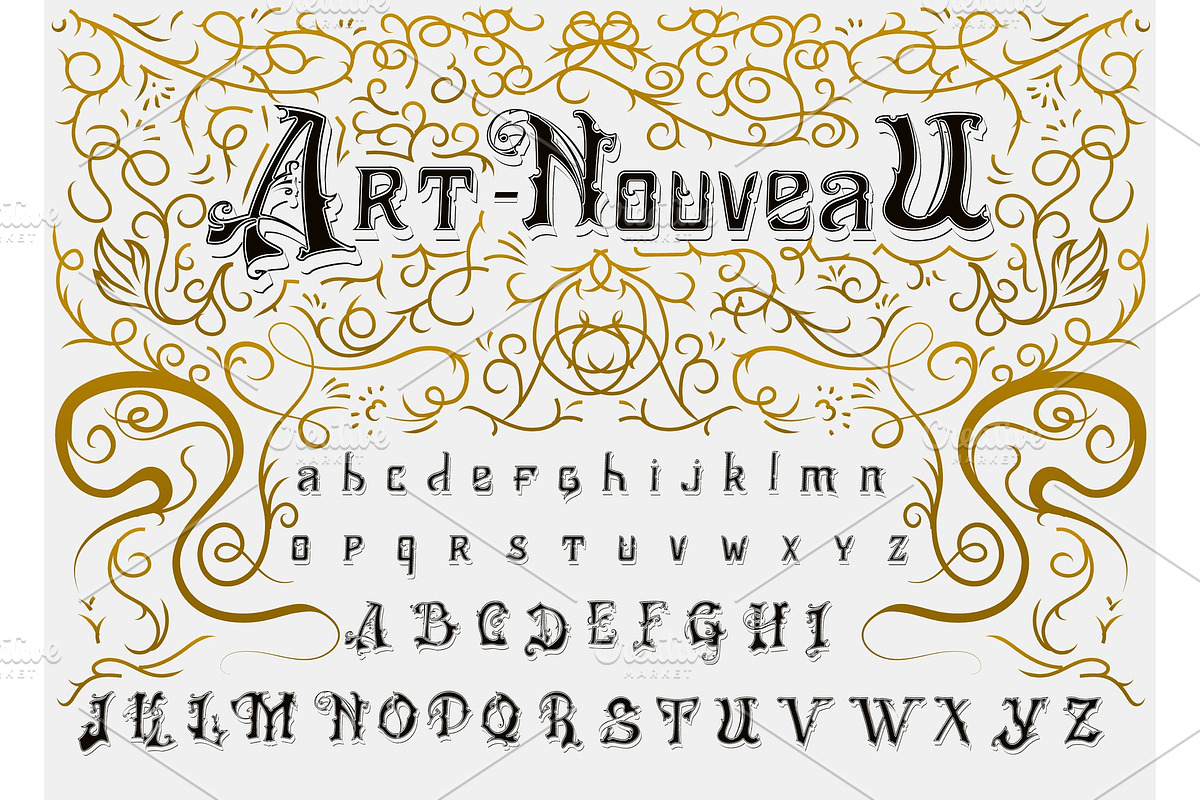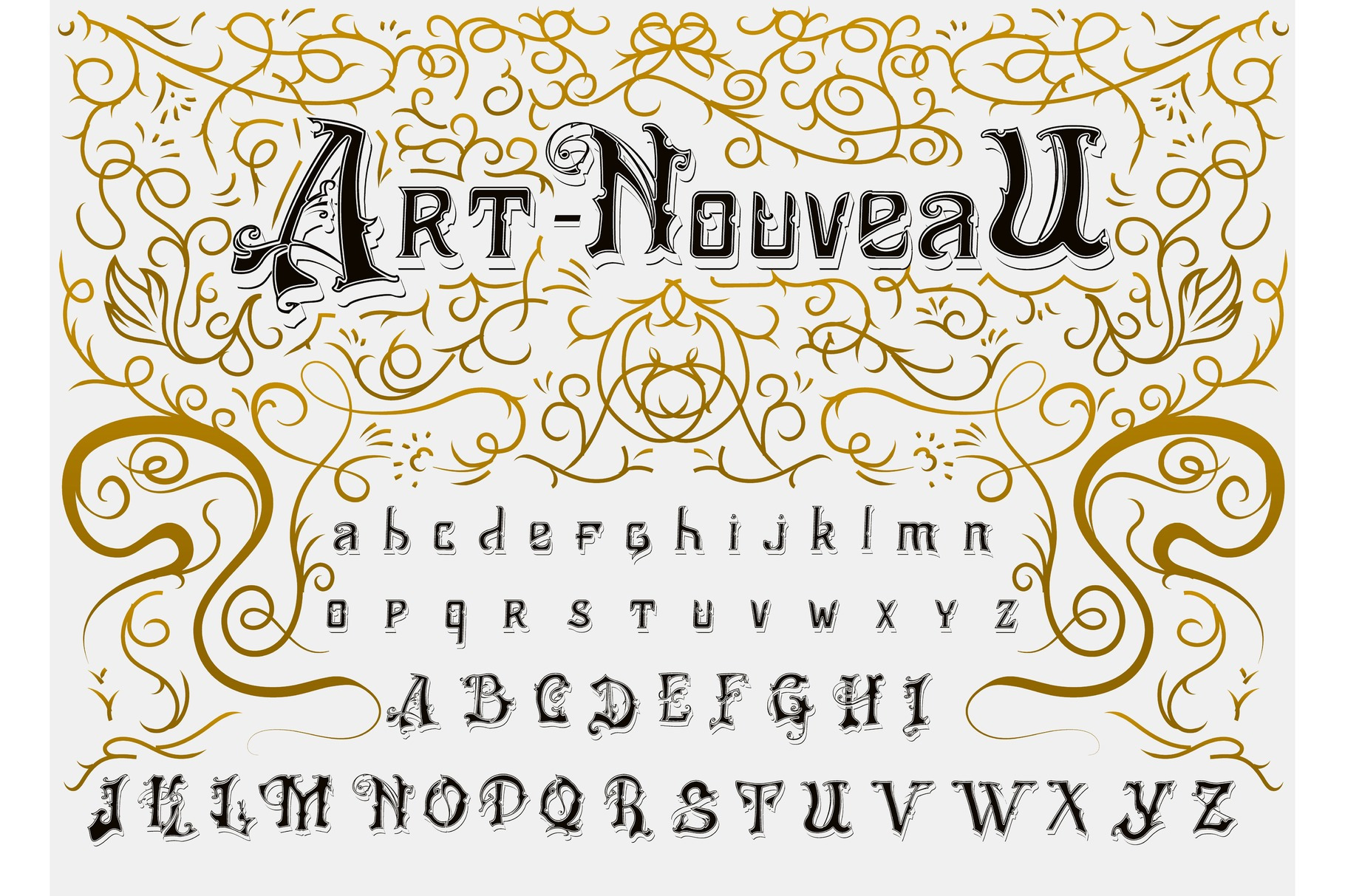
Victorian Font in ancient
Victorian Font in ancient style. Antique old alphabet for Whiskey label. Vintage typeface in gold colors, editable and layered. Hand drawn Vector modern letters